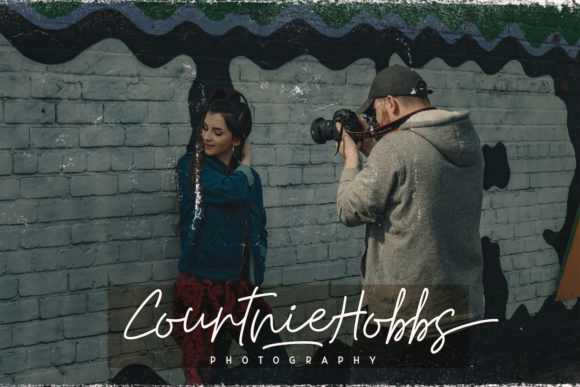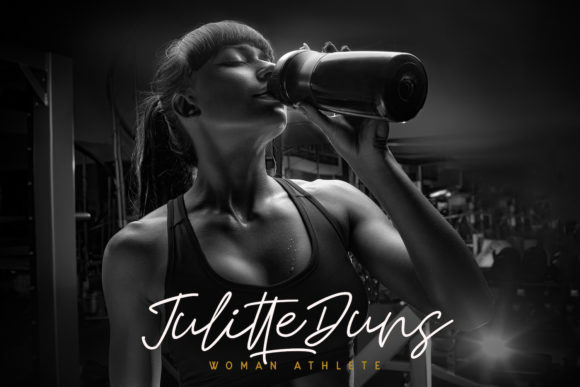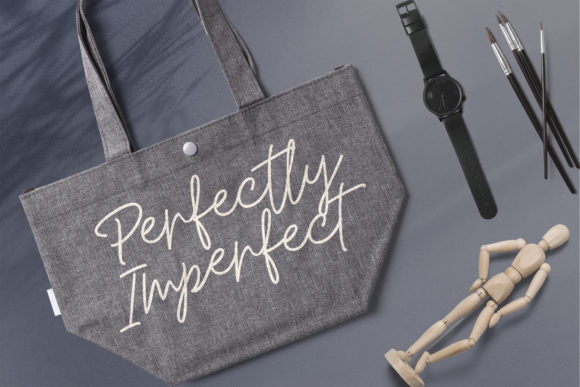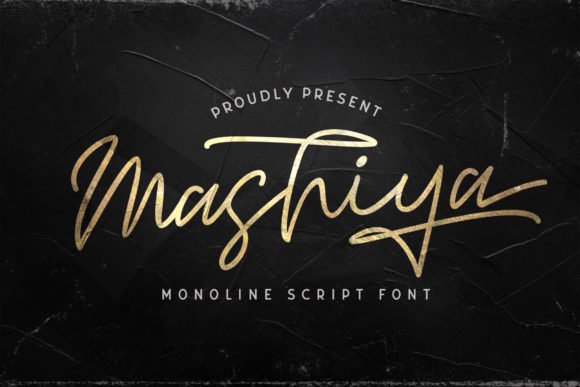
Introduction to Mashiya Font
Mashiya is an exquisite handwritten font.
It is PUA encoded which means you can access all of the glyphs and swashes with ease It features a varying baseline, smooth lines, gorgeous glyphs and stunning alternates.
Why Choose Mashiya Font?
Mashiya Font offers exceptional quality and versatility, making it a valuable addition to your design toolkit. Whether you’re creating for personal projects or commercial use, Mashiya Font delivers professional results.